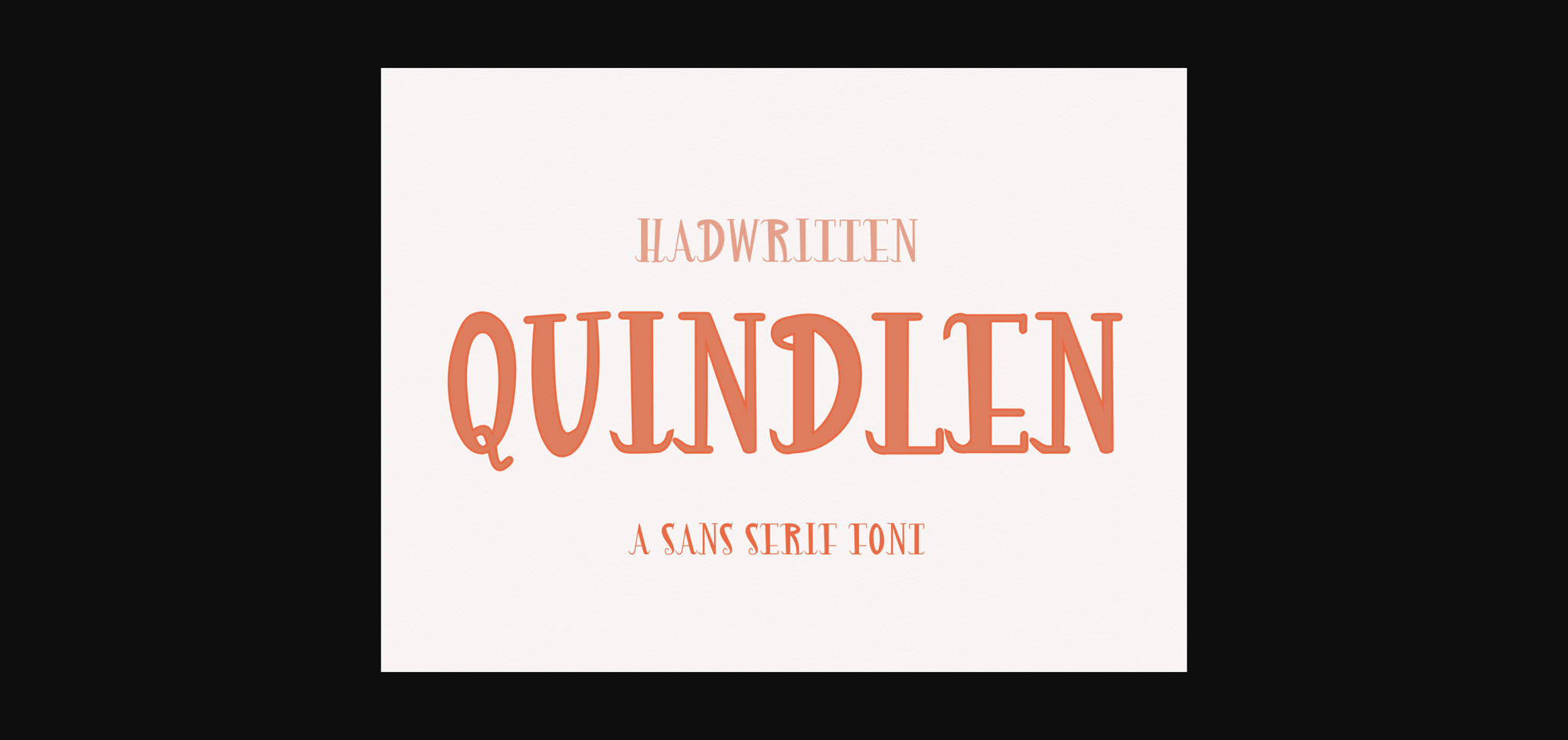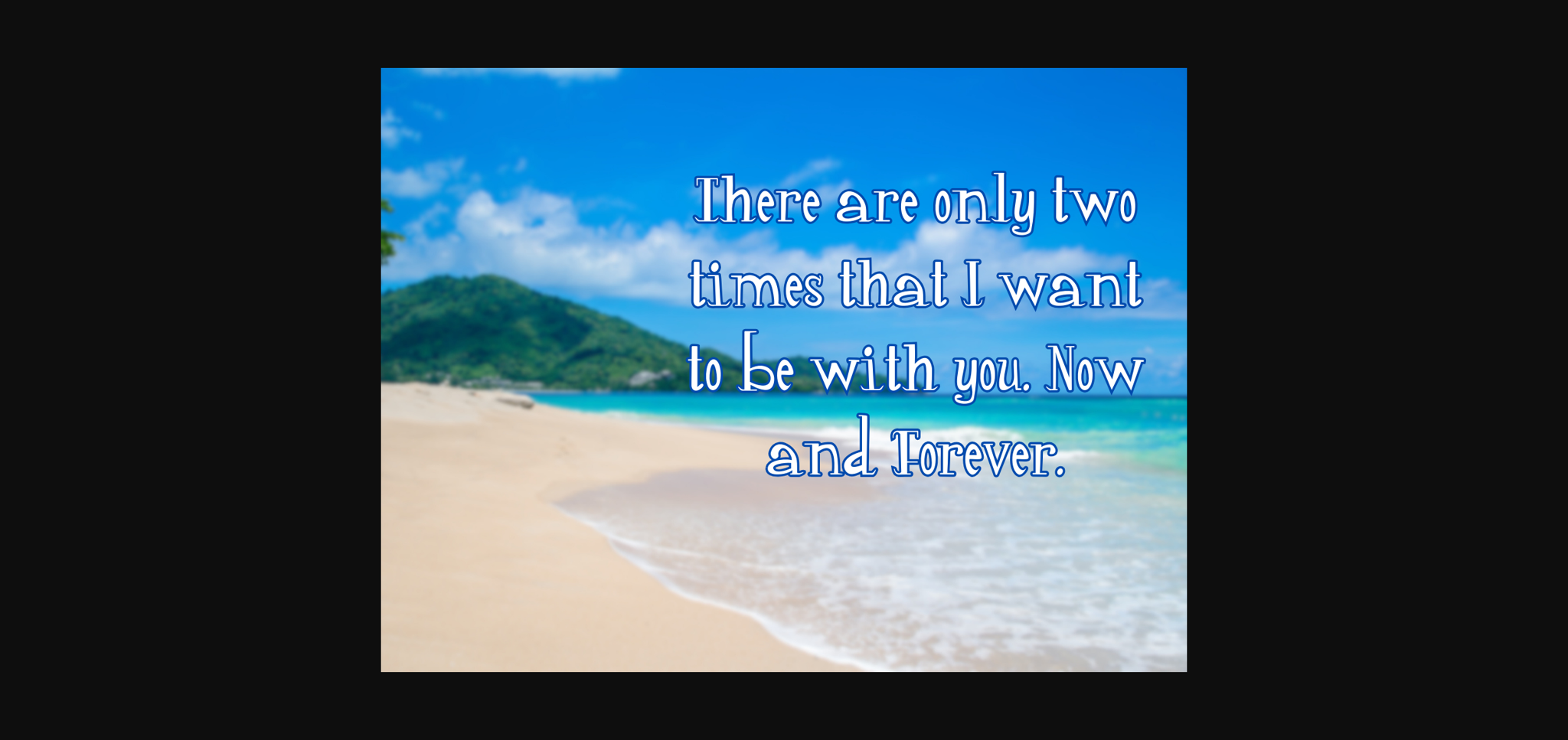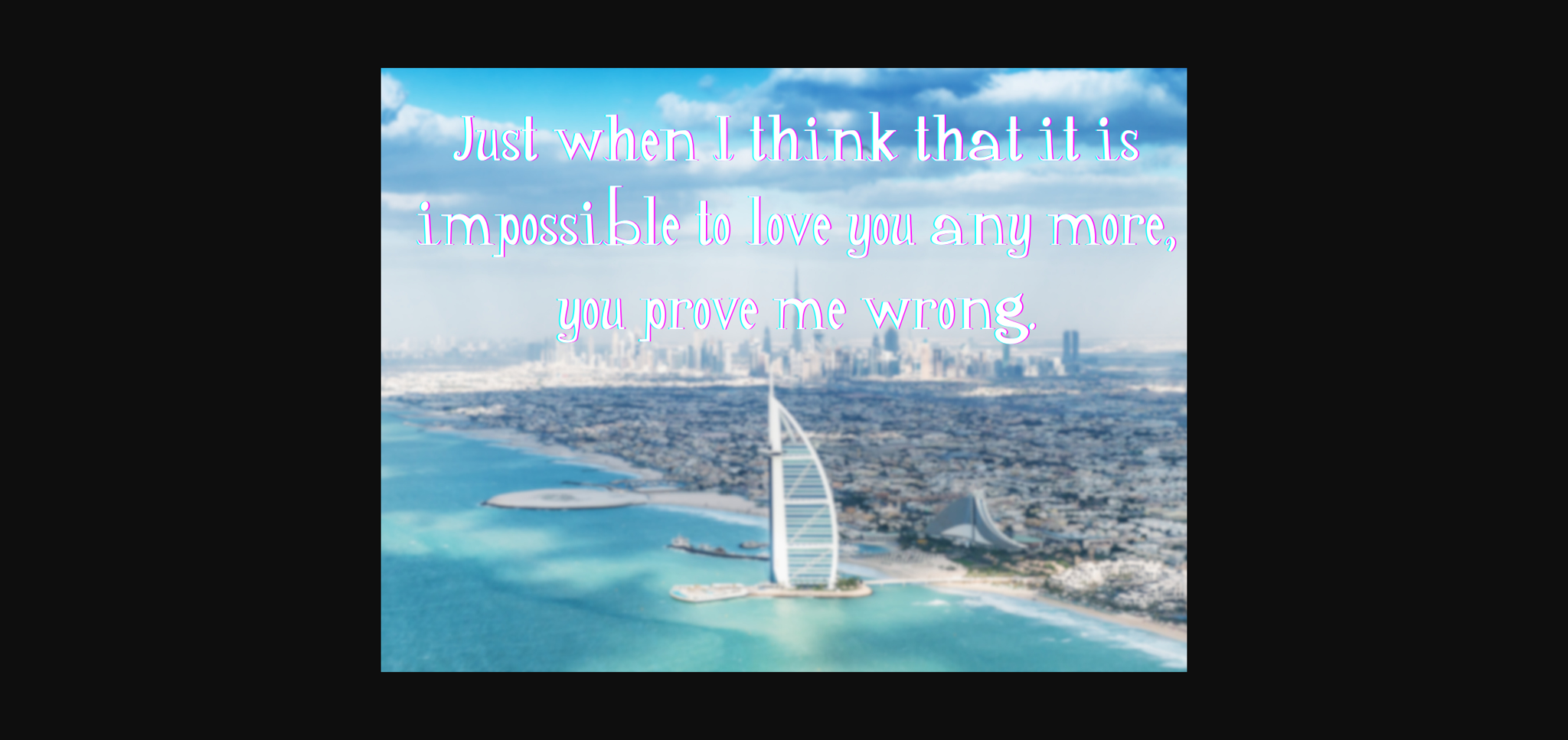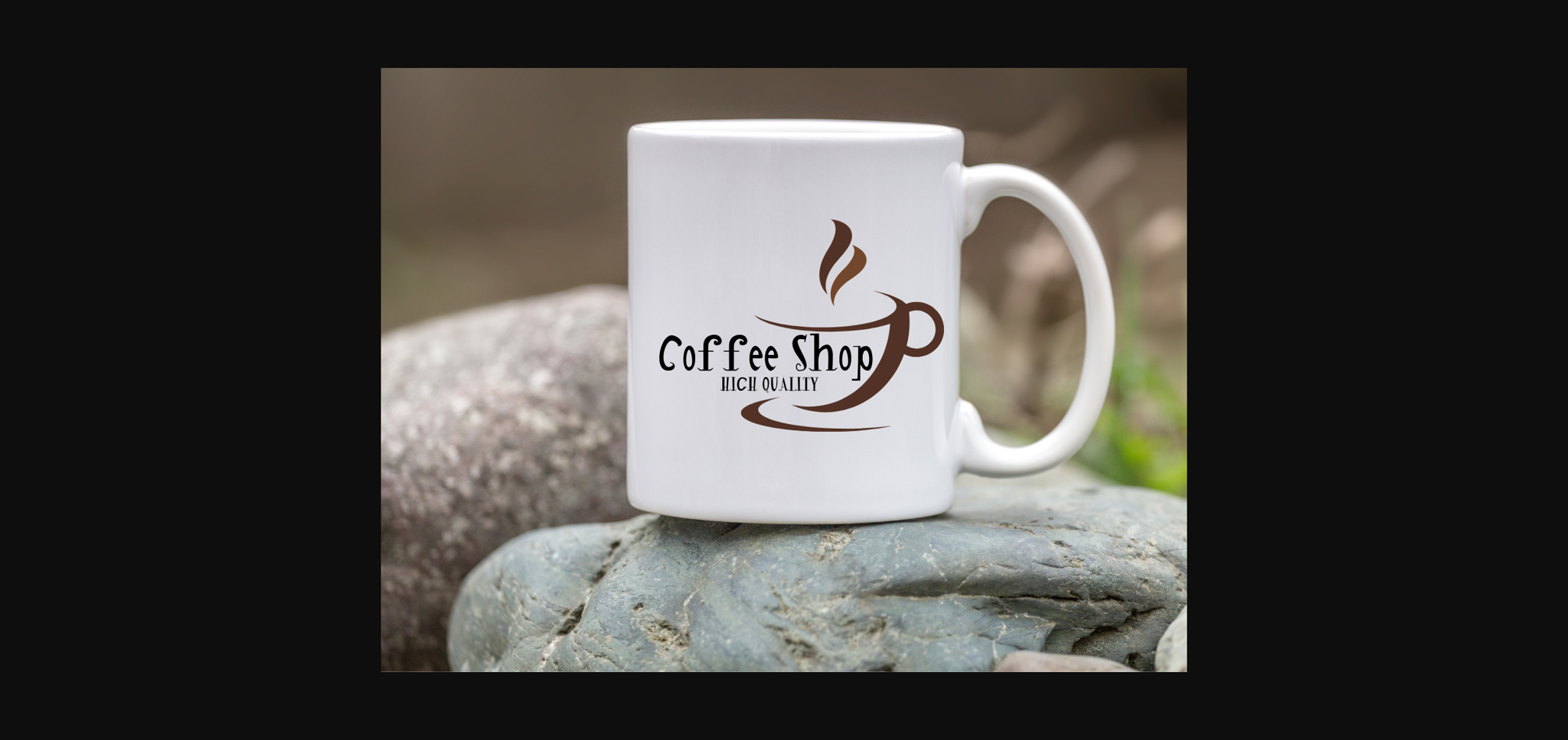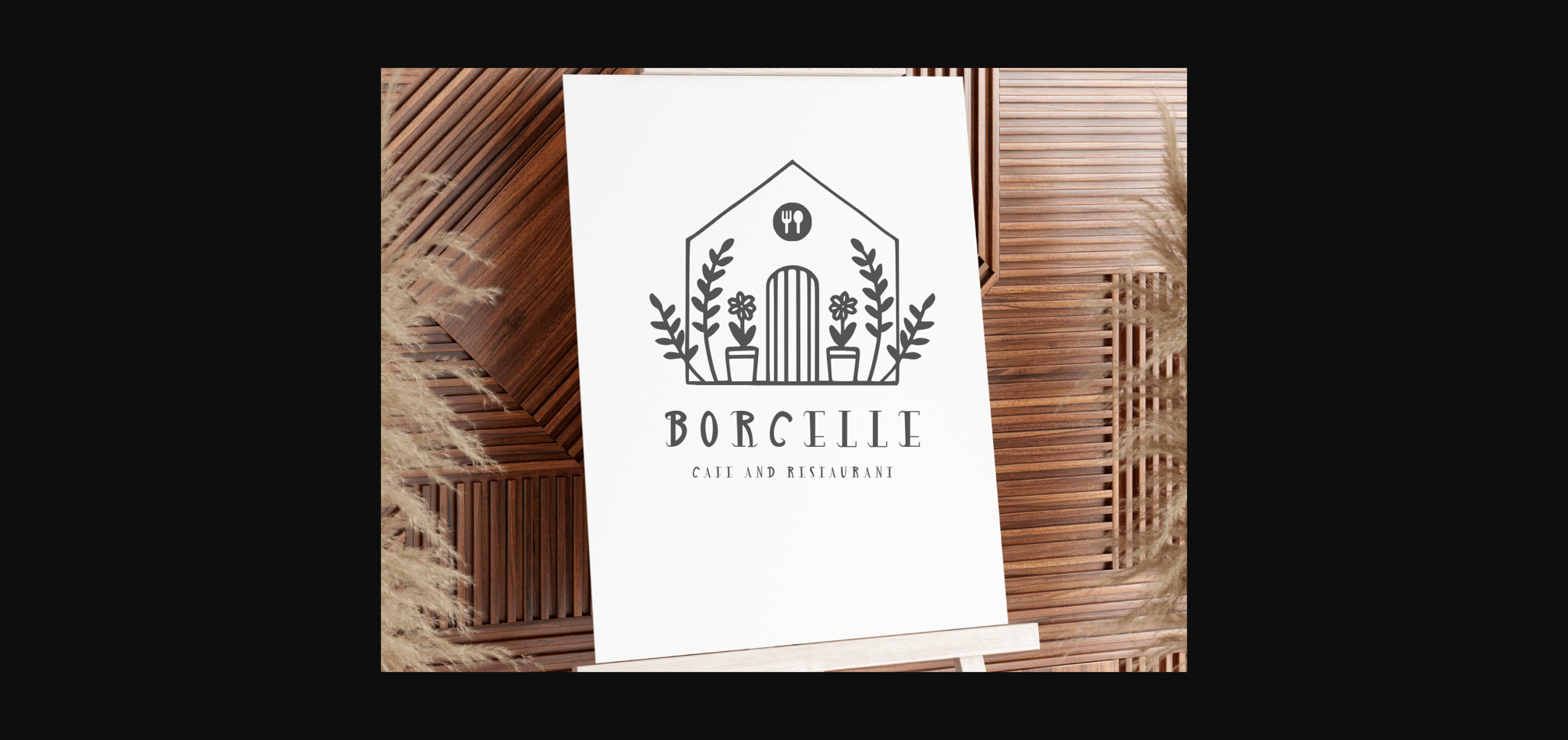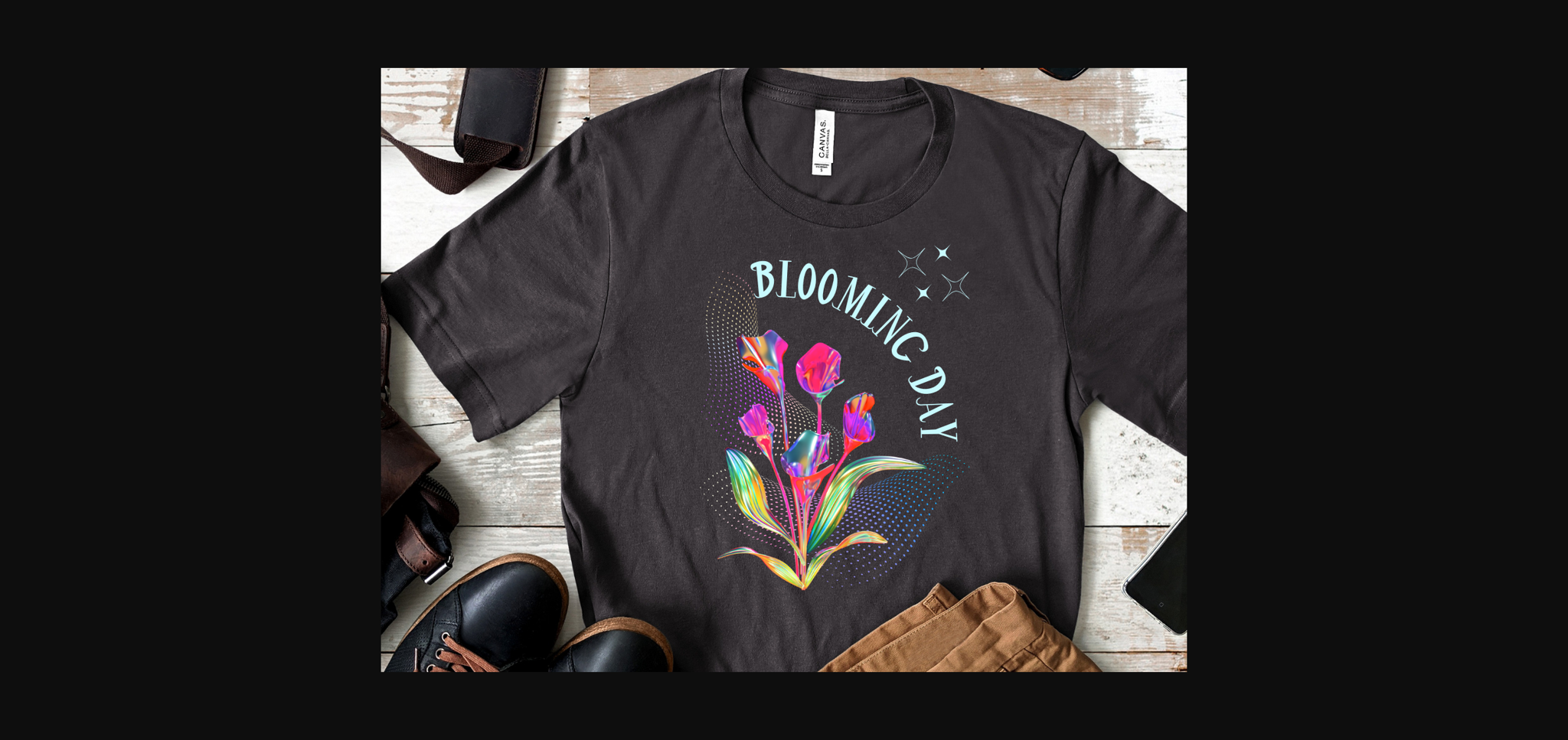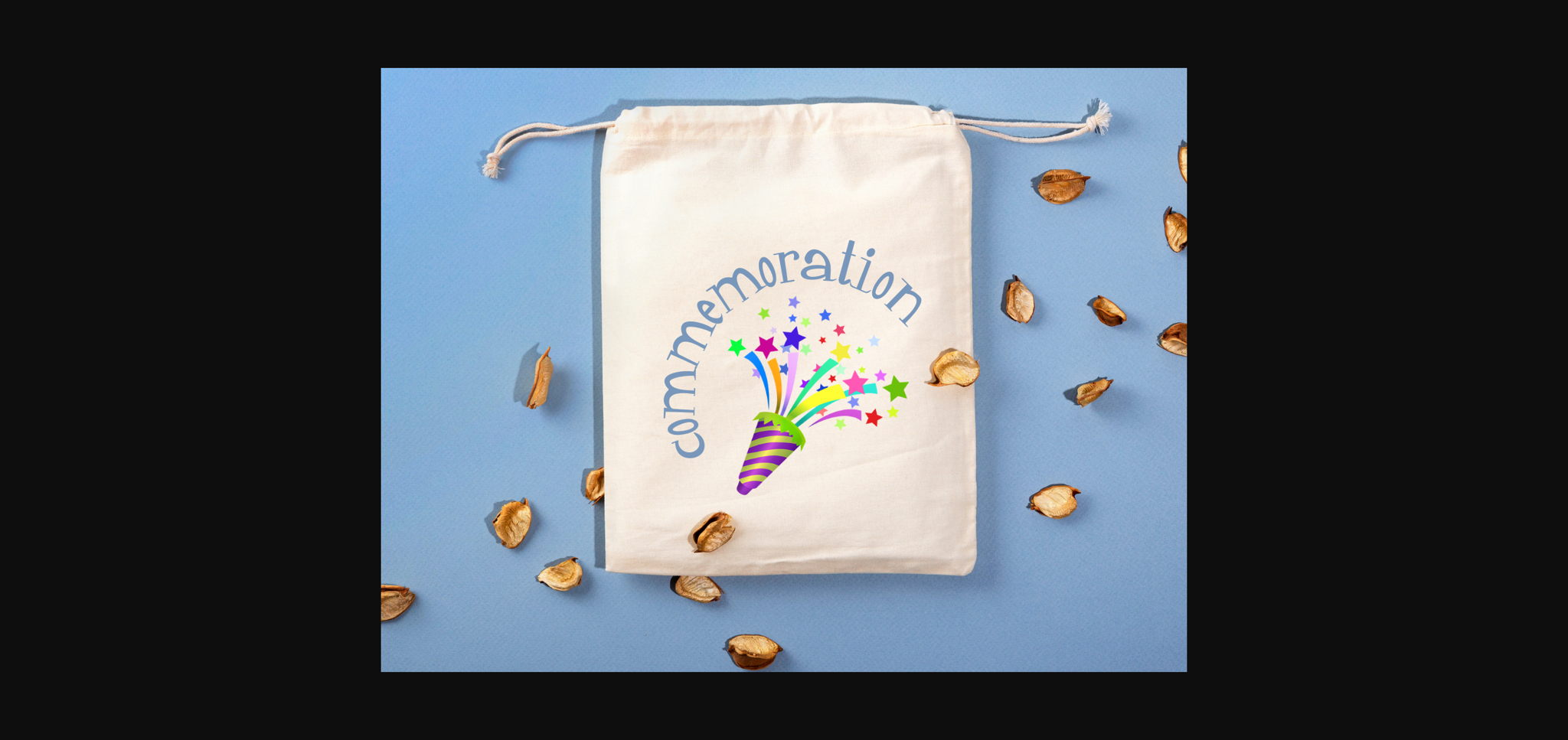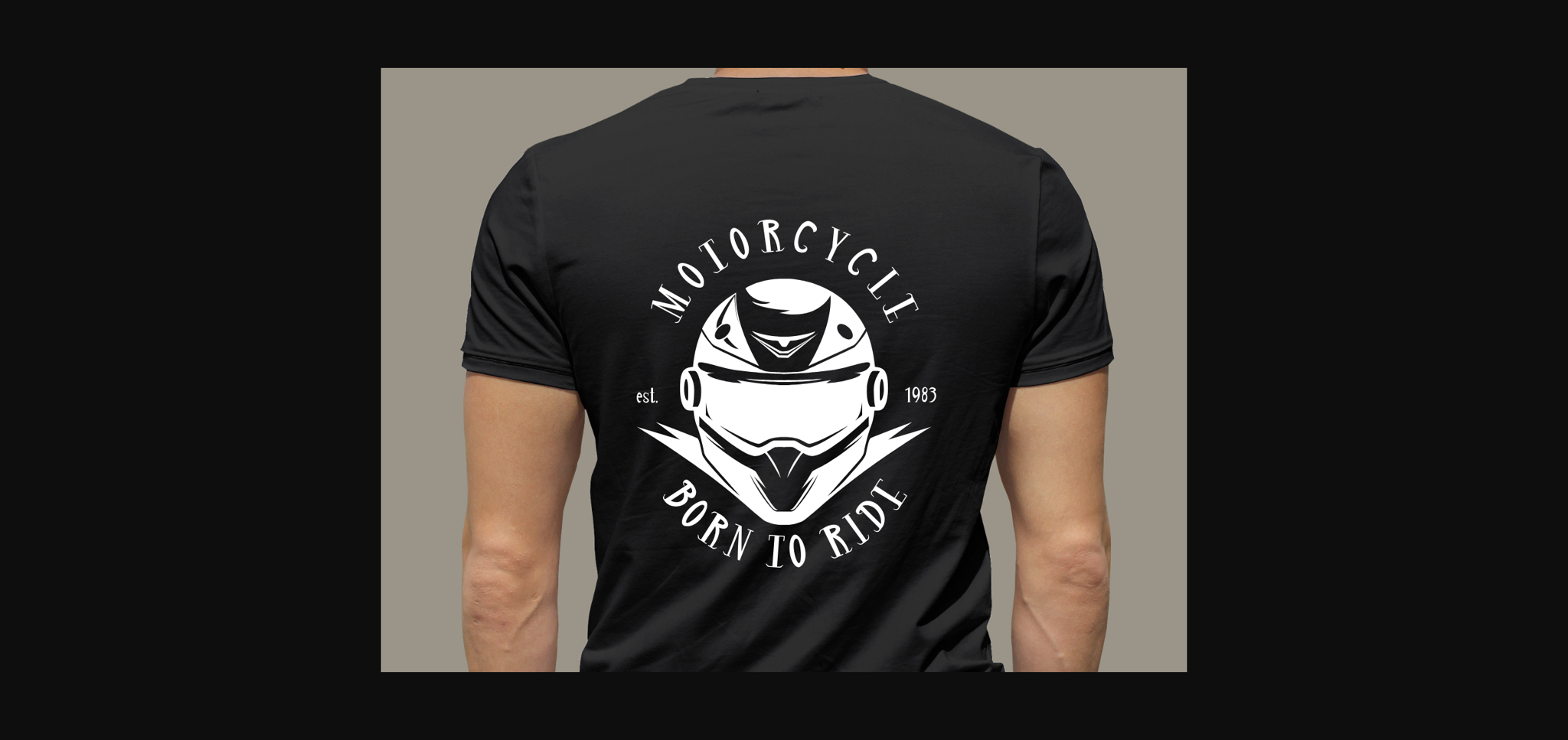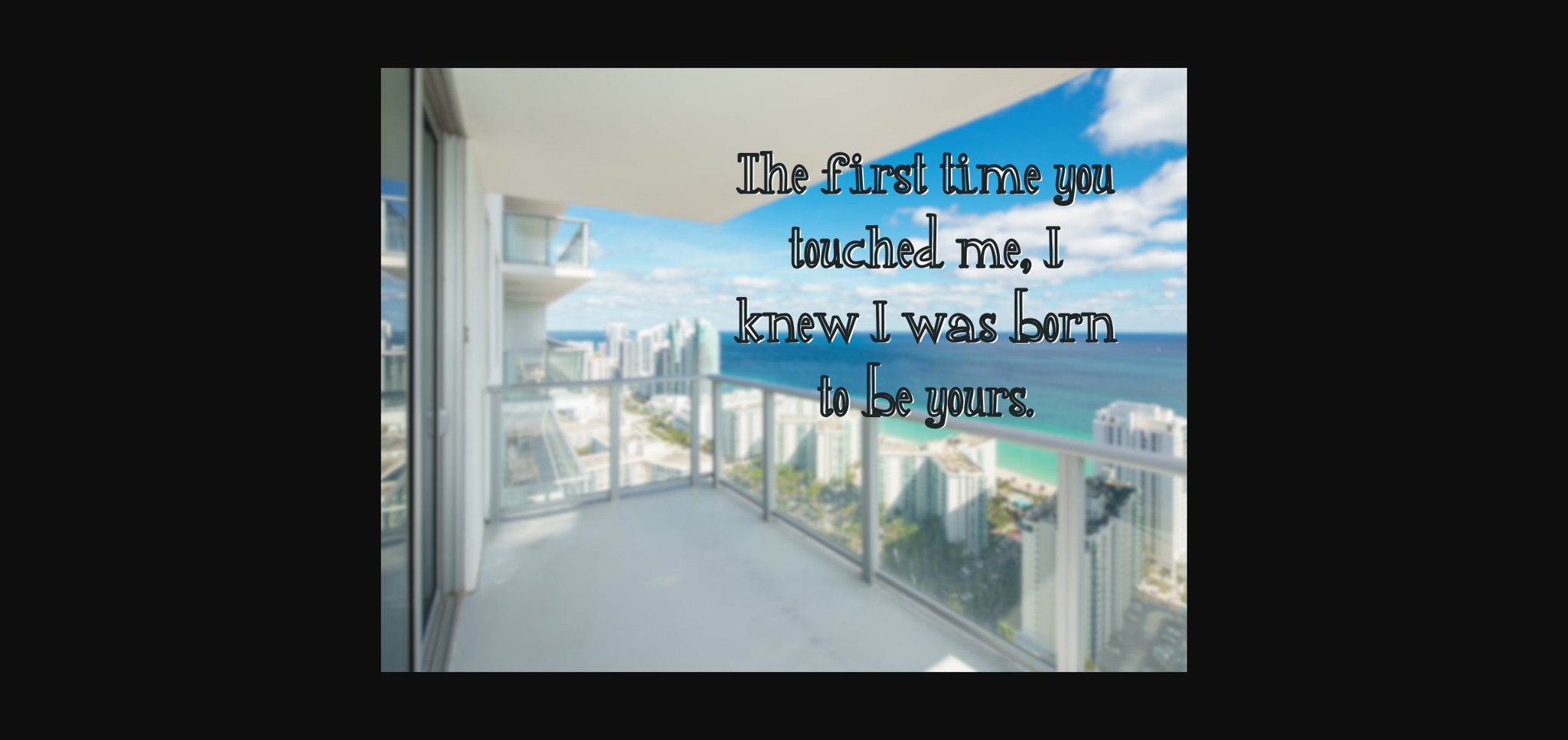
HomeSans Serif FontsQuindlen Font Sans Serif Fonts Quindlen Font FacebookXPinterestWhatsApp 1 of 11 ... Quindlen Font Poster 2... Quindlen Font Poster 3... Quindlen Font Poster 4... Quindlen Font Poster 5... Quindlen Font Poster 6... Quindlen Font Poster 7... Quindlen Font Poster 8... Quindlen Font Poster 9... Quindlen Font Poster 10... Quindlen Font Poster 11... About Quindlen Font Quindlen is a cute and quirky sans serif font. It will add an incredibly joyful touch to your designs. Add this beautiful font to each of your creative ideas and notice how it makes them stand out! DOWNLOAD NOW People also explored Movelyone Font Fresh Tea Font Vintage Handmade Font Pompom Hello Shanty Font Dear Cheri Font Minimalist Font Everything Font Boldo Boldie Font 297 0 TagsQuindlen Font Previous articleAuber FontNext articleWorry Me Font LEAVE A REPLY Cancel reply Comment: Please enter your comment! Name:* Please enter your name here Email:* You have entered an incorrect email address! Please enter your email address here Website: Save my name, email, and website in this browser for the next time I comment. Personal Use Free Love Story Personal Use Free Read more about this font Saolice Personal Use Free Read more about this font Satori Personal Use Free Read more about this font Kaylafiz Personal Use Free Read more about this font BLOG Fonts That Capture the Spirit of New York City New York City is more than just a place—it’s an experience, a rhythm, a visual language... Top 10 Handwritten Fonts That Elevate Your Designs Elegant Wedding Invitation Fonts – Handwritten & Script Fonts How to Cut Any Font on Cricut: Convert a Font to SVG (Free)